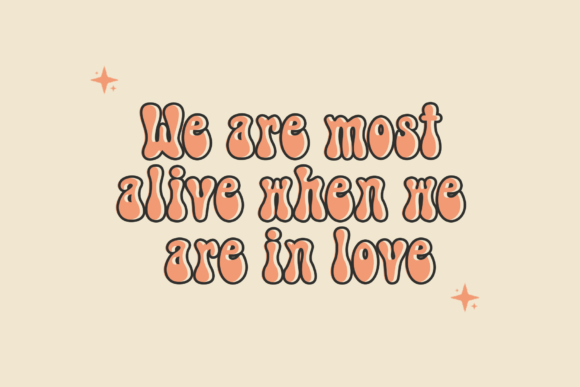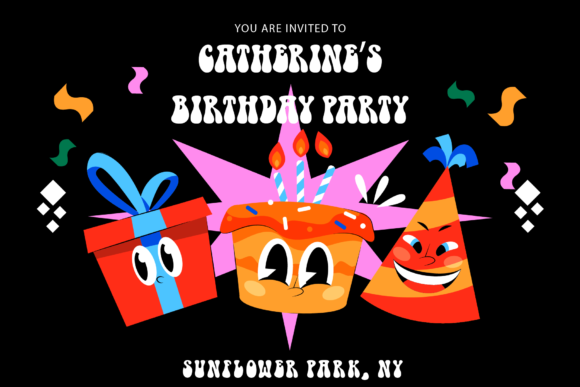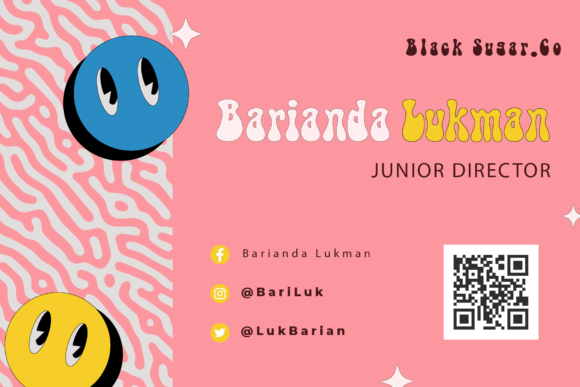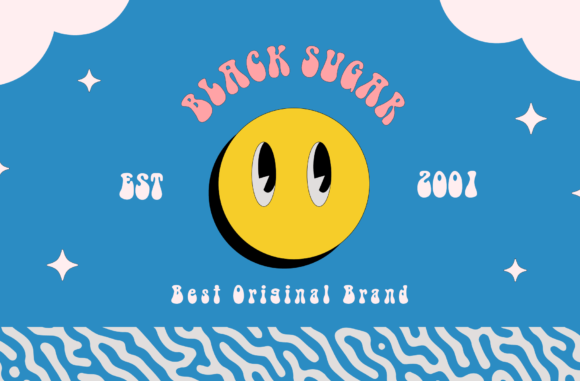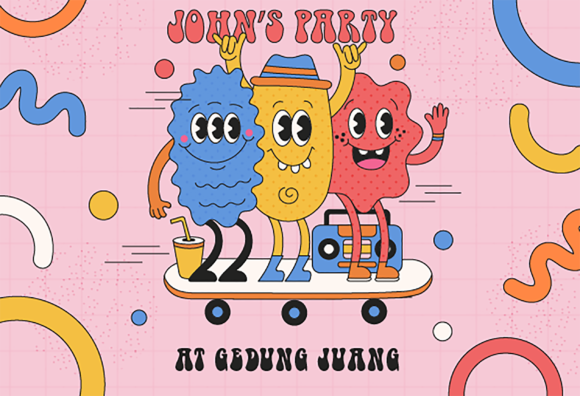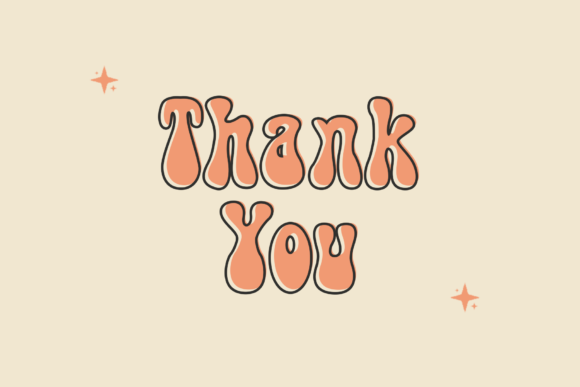
Introducing Black Sugar Font: The Retro and Bubbly Display Font for Cool Designs
Are you a designer or crafter looking for a unique and playful font to add a touch of nostalgia to your projects? Look no further than Black Sugar Font, a retro and bubbly display font that’s perfect for creating cool, groovy designs. In this article, we’ll dive into the features and benefits of Black Sugar Font, and explore the many ways you can use it to elevate your designs.
What is Black Sugar Font?
Black Sugar Font is a display font that’s inspired by the fun and carefree vibes of the retro era. With its bold, rounded letters and playful bubble-like shapes, this font is sure to add a touch of whimsy to any design. Whether you’re creating a logo, branding materials, or social media graphics, Black Sugar Font is the perfect choice for designers who want to make a statement.
Key Features of Black Sugar Font
• Retro and bubbly design: Black Sugar Font features a unique and eye-catching design that’s reminiscent of the retro era. Its bold, rounded letters and bubble-like shapes make it perfect for creating fun and playful designs.
• Perfect for various design projects: Black Sugar Font is perfect for a wide range of design projects, including logos, branding materials, shirts, stickers, Cricut projects, Instagram graphics, and more.
Uses for Black Sugar Font
Black Sugar Font is a versatile font that can be used for a wide range of design projects. Here are some ideas to get you started:
• Branding and logos: Use Black Sugar Font to create a unique and memorable logo for your business or brand. Its bold, playful design is sure to make a statement and help you stand out from the competition.
• T-shirts and apparel: Black Sugar Font is perfect for designing custom t-shirts, hoodies, and other apparel. Its fun and playful design is sure to appeal to anyone who loves retro-style clothing.
• Stickers and decals: Use Black Sugar Font to create fun and colorful stickers and decals for your laptop, water bottle, or any other surface you want to decorate.
• Cricut projects: Black Sugar Font is compatible with Cricut cutting machines, making it easy to create custom vinyl decals, iron-on designs, and more.
• Instagram and social media graphics: Use Black Sugar Font to create eye-catching graphics for your Instagram feed or other social media channels. Its bold, playful design is sure to grab attention and help you stand out from the crowd.
Tips for Using Black Sugar Font
Here are some tips for getting the most out of Black Sugar Font:
• Use it with bright colors: Black Sugar Font looks best when paired with bright, bold colors. Try using it with pink, blue, yellow, or green to create a fun and playful design.
• Experiment with different sizes: Black Sugar Font looks great in a variety of sizes, from small and delicate to large and bold. Experiment with different sizes to find the one that works best for your design.
• Combine it with other fonts: Black Sugar Font can be paired with other fonts to create a unique and interesting design. Try combining it with a sans-serif font for a fun and modern look.
Black Sugar Font is a unique and versatile font that’s perfect for designers and crafters who want to add a touch of nostalgia to their projects. With its retro and bubbly design, high-quality format, and wide range of uses, Black Sugar Font is a great addition to any design toolkit. Whether you’re creating logos, branding materials, or social media graphics, Black Sugar Font is sure to help you make a statement and stand out from the crowd.